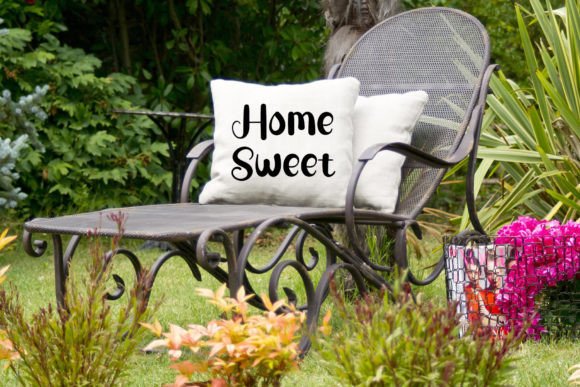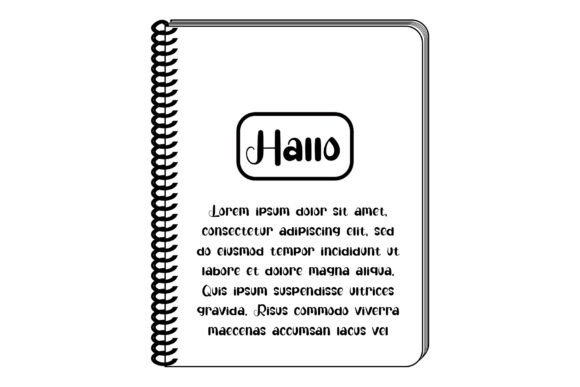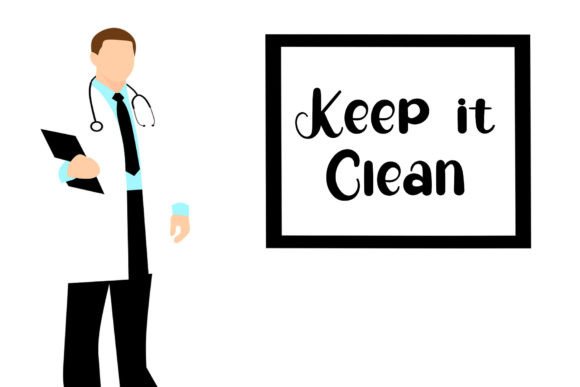
The Githa Font: A Unique and Elegant Display Font for Your Creative Projects
Have you ever been working on a design project, and suddenly, you’re stuck on finding the perfect font? I recall a particularly frustrating experience while designing a wedding invitation for a friend. The font had to be elegant, yet playful; classic, yet modern. That’s when I stumbled upon the Githa font, and it instantly became my go-to choice. In this article, I’ll share my experience with Githa, its features, and how to make the most of it in your designs.
A Personal Review of Githa Font
What I Love About Githa ✨
- ✅ Elegant and unique handwritten style, perfect for making a statement
- ✅ PUA encoded, allowing easy access to glyphs and swashes
- ✅ Versatile and suitable for various design projects, from wedding invitations to logos and business cards
- ✅ Easy to read and understand, even at smaller font sizes
While Githa is an excellent font, there are a few minor quirks to be aware of:
- 🤔 Some users might find the font a bit too ornate for certain projects, such as minimalist designs
- ⚠️ As with any script font, it may not be the best choice for body text or lengthy content
The Story Behind Githa Font
Githa font was designed with the intention of creating a unique, elegant display font that captures the essence of handwritten typography. The designer aimed to craft a font that would be both versatile and beautiful, suitable for a wide range of creative projects. While the exact backstory of Githa might be unknown, its design inspiration likely stems from traditional calligraphy and hand-lettering techniques.
Q: What is PUA encoding, and how does it benefit Githa font?
PUA (Private Use Area) encoding allows font designers to include additional glyphs and characters that aren’t part of the standard Unicode character set. In the case of Githa, PUA encoding provides easy access to swashes, glyphs, and other decorative elements, making it a more versatile and expressive font.
Q: Is Githa suitable for body text or lengthy content?
While Githa is an elegant and beautiful font, it’s primarily designed for display purposes. As with most script fonts, it might not be the best choice for body text or lengthy content, as it may become difficult to read.